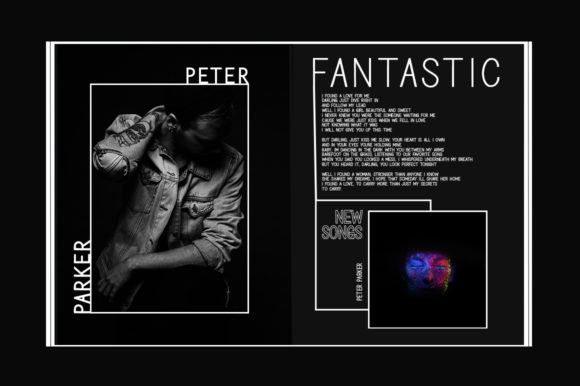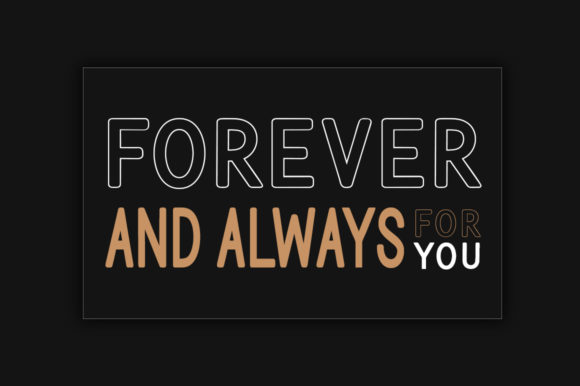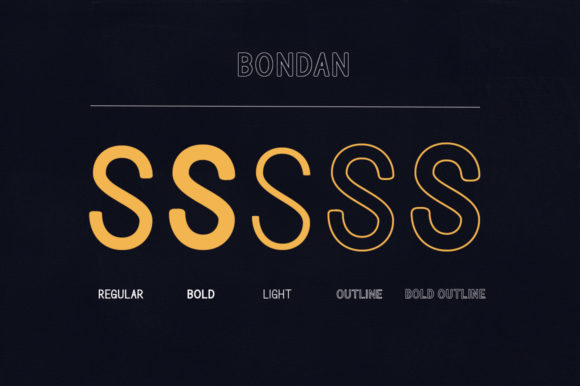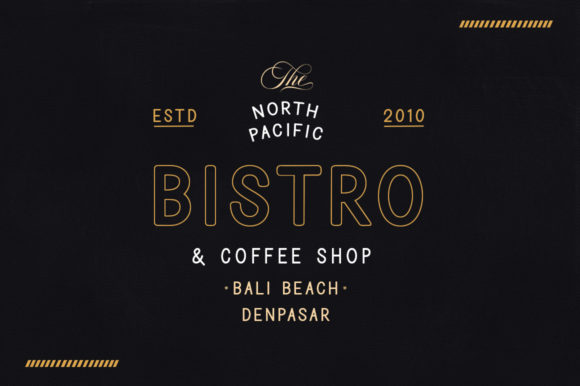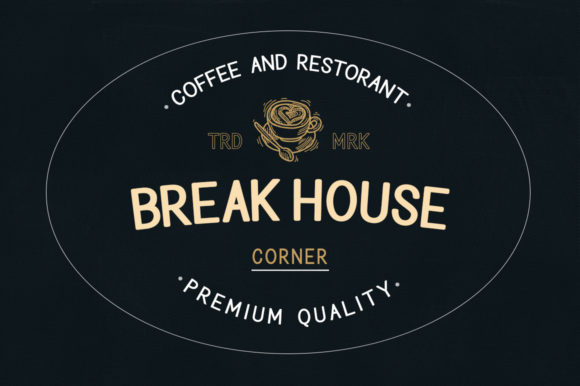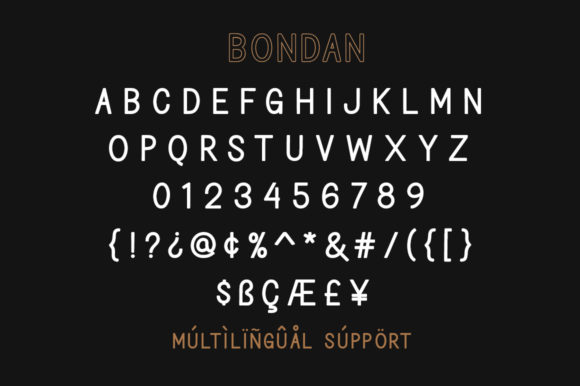
Bondan Family Font: Elevate Your Design with a Modern and Vintage Twist
In the world of typography, finding the perfect font that captures the essence of your design can be a daunting task. However, if you’re looking for a versatile and stylish sans serif font that seamlessly blends modern and vintage elements, look no further than the Bondan Family Font. Designed to cater to a wide range of creative projects, the Bondan font family is an excellent choice for designers and crafters seeking to add a touch of sophistication and elegance to their work.
What is Bondan Family Font?
The Bondan is a thoughtfully crafted family of sans serif fonts that boasts a unique blend of modern and vintage characteristics. This distinctive fusion makes it an ideal choice for various design applications, including branding, magazines, posters, logos, logotype stickers, website titles, packaging, branding, quotes, business cards, and more. With its clean lines, subtle nuances, and exceptional legibility, the Bondan font family is poised to elevate your design to new heights.
Key Features of Bondan Family Font
So, what sets the Bondan Family Font apart from other fonts in its category? Here are some of its key features:
- Modern and Vintage Feel: The Bondan font family effortlessly combines modern and vintage elements, making it perfect for designers seeking to create unique and captivating designs.
- Sans Serif Design: The clean and minimalist sans serif design of the Bondan font ensures exceptional legibility, making it suitable for a wide range of applications.
- Versatility: The Bondan font family is incredibly versatile and can be used for various design projects, from branding and advertising to packaging and digital media.
- Exceptional Legibility: The font’s carefully crafted design ensures that it remains clear and legible, even at smaller font sizes.
Use Cases for Bondan Family Font
The Bondan font family’s versatility is one of its most significant advantages. Here are some examples of how you can use this amazing font in your designs:
- Branding: Create a lasting impression with the Bondan font family, perfect for logos, business cards, and brand guidelines.
- Magazines and Posters: Add a touch of sophistication to your publications and posters with the Bondan font’s elegant design.
- Logos and Logotype Stickers: Create eye-catching logos and logotype stickers that showcase your brand’s personality.
- Website Titles: Elevate your website’s design with the Bondan font family’s modern and vintage charm.
- Packaging: Make your products stand out with the Bondan font family’s clean and stylish design.
- Quotes and Business Cards: Add a touch of elegance to your quotes and business cards with the Bondan font family’s sophisticated design.
Why Choose Bondan Family Font?
With so many fonts available, why should you choose the Bondan Family Font for your design projects? Here are a few compelling reasons:
- Unique Design: The Bondan font family’s blend of modern and vintage elements makes it a standout choice for designers seeking to create unique designs.
- Exceptional Legibility: The font’s carefully crafted design ensures that it remains clear and legible, even at smaller font sizes.
- Versatility: The Bondan font family is suitable for a wide range of design applications, making it an excellent addition to any designer’s toolkit.
- Ease of Use: The Bondan font family is easy to use and can be easily integrated into your design workflow.
| Font Name | Bondan Family Font |
| Author | Great Studio |
In conclusion, the Bondan Family Font is an exceptional choice for designers and crafters seeking to elevate their designs with a modern and vintage twist. With its unique blend of clean lines, subtle nuances, and exceptional legibility, this font family is poised to become a staple in any designer’s toolkit. Whether you’re working on branding, magazines, posters, logos, or packaging, the Bondan font family is sure to impress. So why wait? Discover the versatility and elegance of the Bondan Family Font and take your designs to new heights.